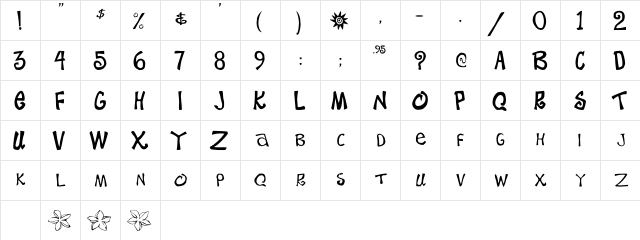
LHF Happy Fun Ball Regular
| Foundry | Chuck Davis for Letterhead Fonts |
| Designer | Chuck Davis |
Design Context for LHF Happy Fun Ball Typeface
LHF Happy Fun Ball has an approachable, lighthearted character — its loose, expressive forms are well-suited to children's content, casual branding, and fun-first design.
Well-suited to food and beverage brands with personality, educational materials, and fun-forward identities.
Font Pairing: Pairs well with a rounded or humanist sans for body copy, maintaining the friendly tone without relying on LHF Happy Fun Ball to carry extended reading.
Pro Tip: Use LHF Happy Fun Ball at larger display sizes where its expressive character can land. Pair with a clean, simple sans for body copy to maintain readability.